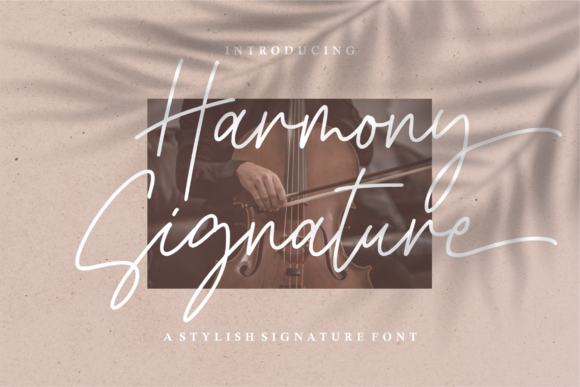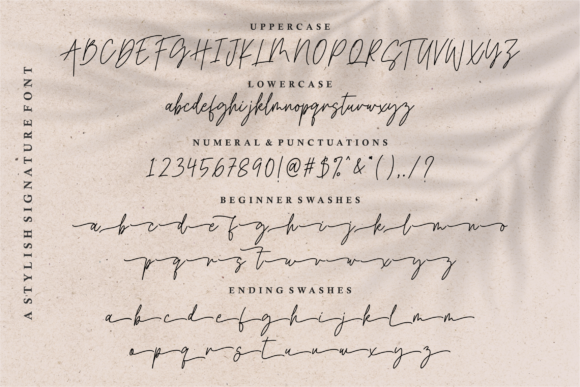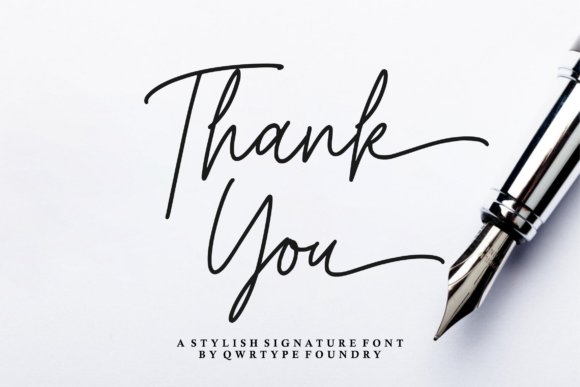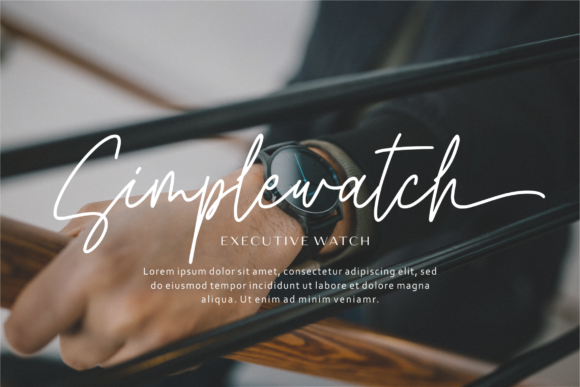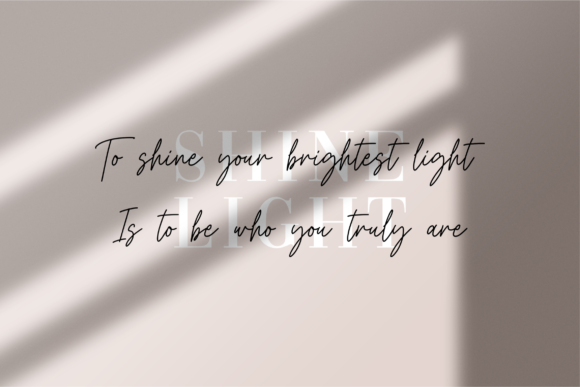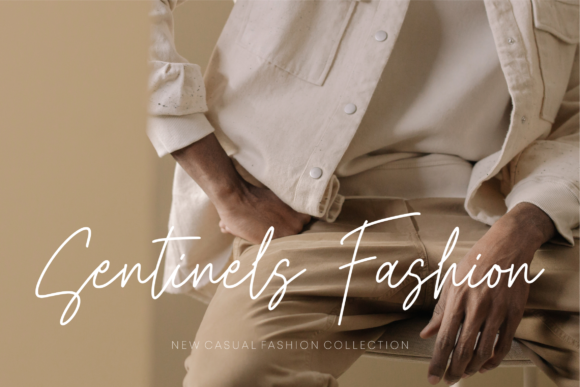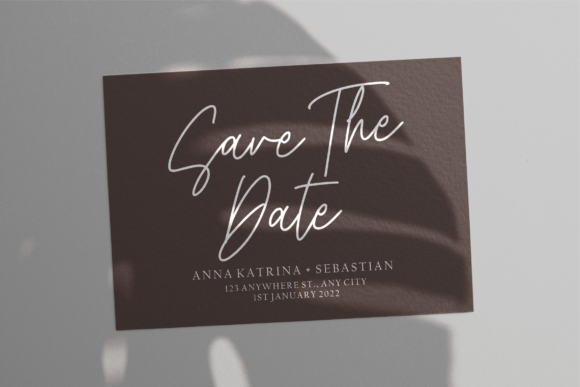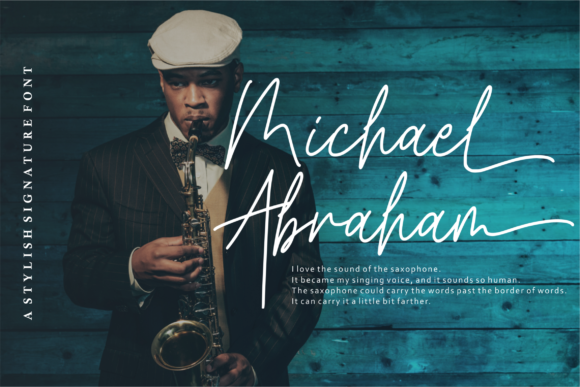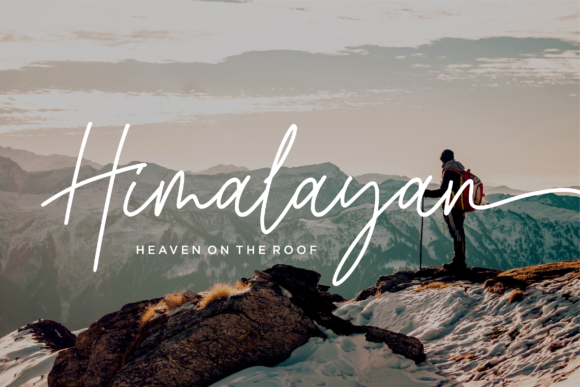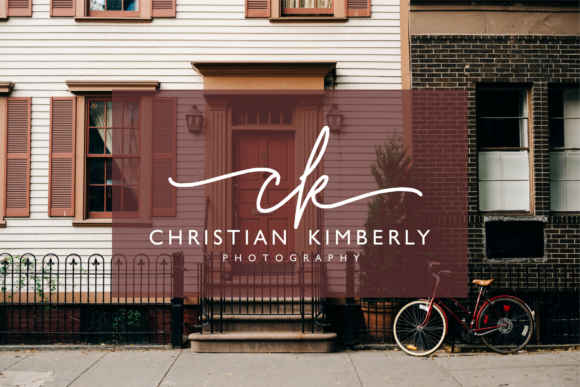
Harmony Signature Font
About Harmony Signature Font
Harmony Signature is a fashionable and stylish script font. This font is PUA encoded which means you can access all of the glyphs and swashes with ease.